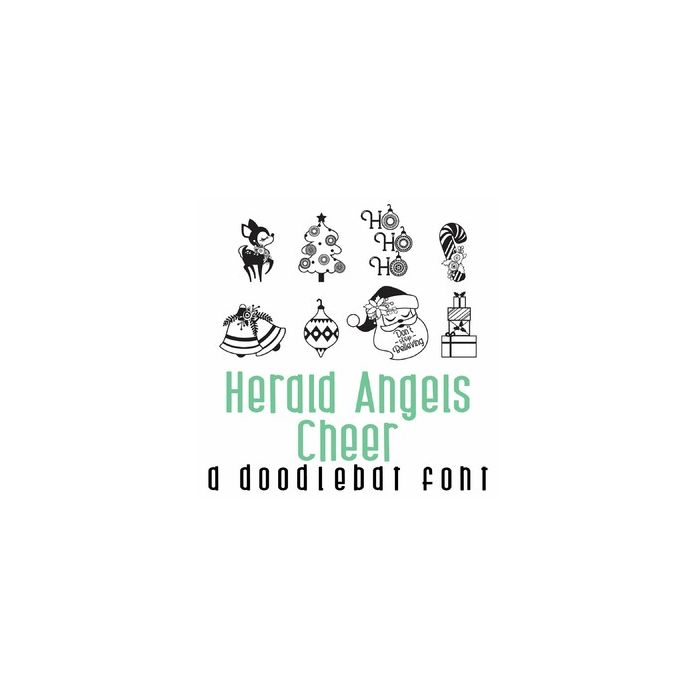
This adorable doodlebat font features 26 holiday imagery and is perfect for the holidays. Great for cards, crafts, gifts, decor, planner stickers, scrap book pages, and more!